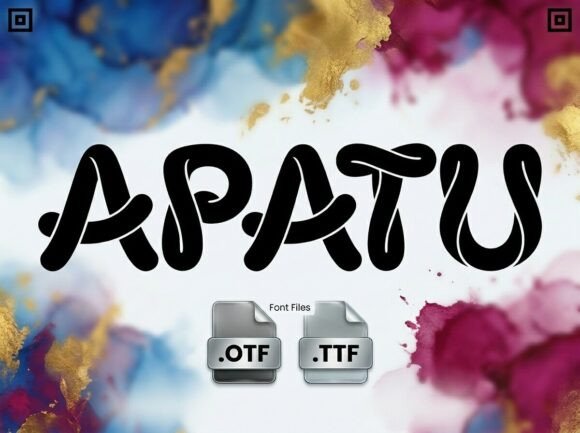
Unlock Creative Potential with Apatu Font
Have you ever been in the middle of a design project, pouring your heart and soul into it, only to hit a creative roadblock because you just can’t find the right font? I certainly have. It was during one of those frustrating moments that I stumbled upon the Apatu Font, a decorative display font that has since become a game-changer for my creative endeavors. If you’re a designer, crafter, or creative hobbyist looking to elevate your projects, you’re in the right place.
First Impressions: A Bold and Beautiful Font
Apatu Font is designed to be the centerpiece of any layout, and it’s clear why. With its distinct artistic elements and strong character, it offers a refreshing break from the ordinary. This font is perfect for those who want to make a statement with their bold headlines, creative branding, and packaging. It delivers a high-end, professional aesthetic without compromising on personality.
⚠️ Technical Note: It’s worth noting that Apatu Font is an All-Caps display typeface. By design, it does not contain lowercase letters, making it a powerful tool for logos, titles, and decorative initials.
Honest Review: The Good and the Quirks
Here’s what I love about Apatu Font:
- ✨ Unique Artistic Elements: The font’s distinct style sets it apart from more generic fonts.
- ✅ High Versatility: Despite being a display font, it can be used across various creative projects.
- ✅ Professional Aesthetic: It gives any project a polished, high-end look.
And here are a few quirks to keep in mind:
- 🤔 All-Caps Limitation: If you’re looking for a font for body text or need lowercase letters, Apatu might not be the best fit.
The Story Behind Apatu Font
While the origins of Apatu Font remain somewhat mysterious, it’s clear that it was crafted with the designer in mind. The creator aimed to produce a font that was not only visually striking but also versatile and easy to use. Whether through hours of meticulous design or a burst of creative genius, Apatu Font has emerged as a valuable tool for creatives.
| Is Apatu Font suitable for body text? | No, due to its design as an All-Caps display typeface, Apatu Font is best used for titles, headings, and decorative elements. |
| Is Apatu Font available in different weights or styles? | Apatu Font is primarily available as a single style, but its unique design offers enough versatility for various creative applications. |
Apatu Font stands out as a powerful tool for any creative looking to add a touch of elegance and personality to their projects. With its bold and artistic elements, it’s sure to become a favorite in your font collection.